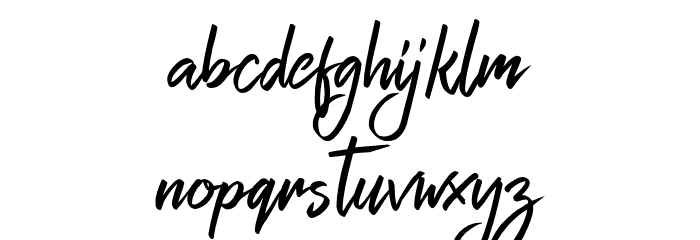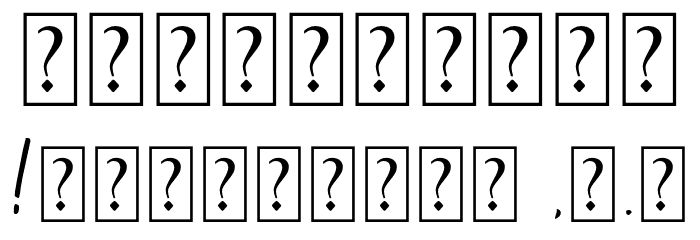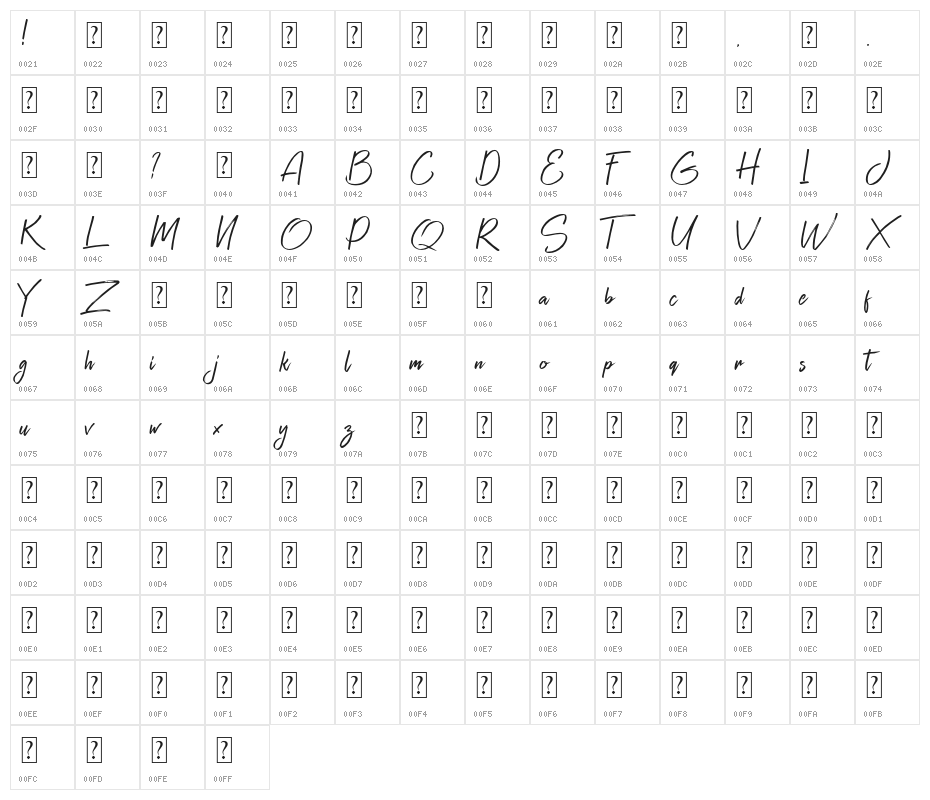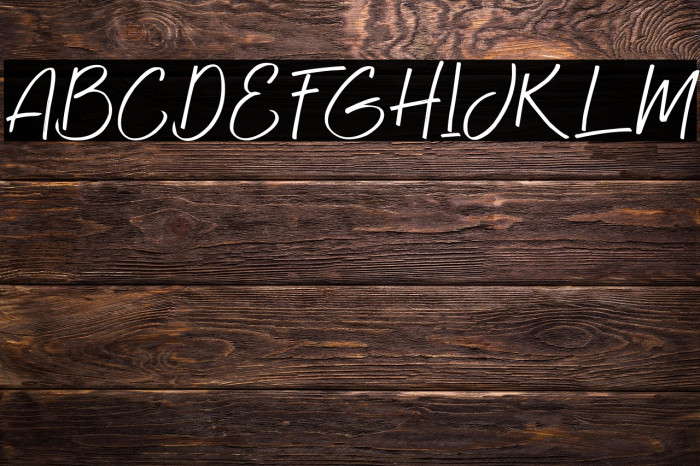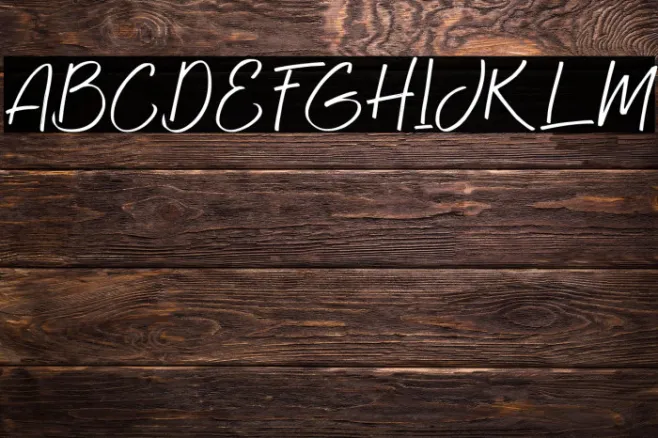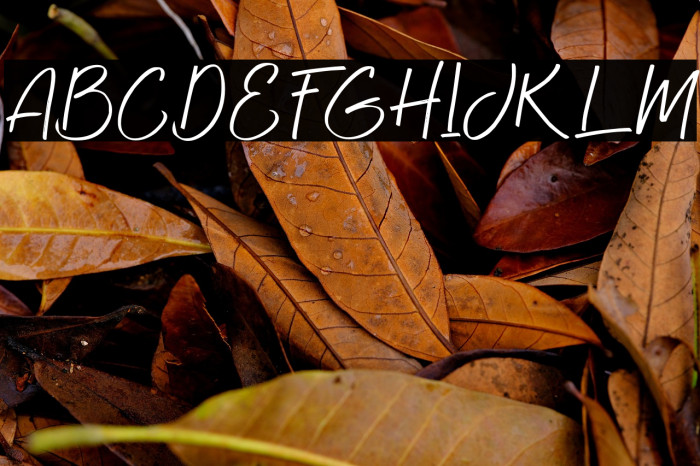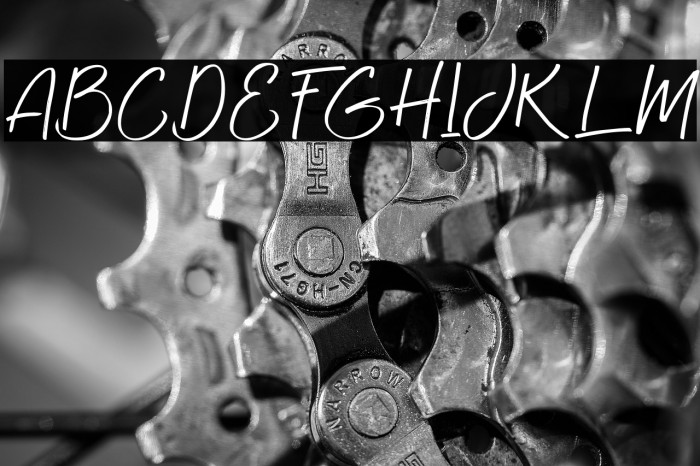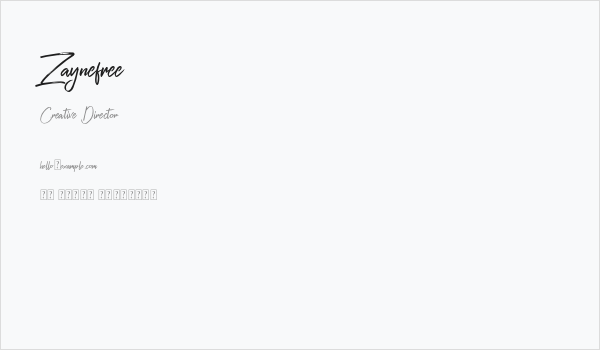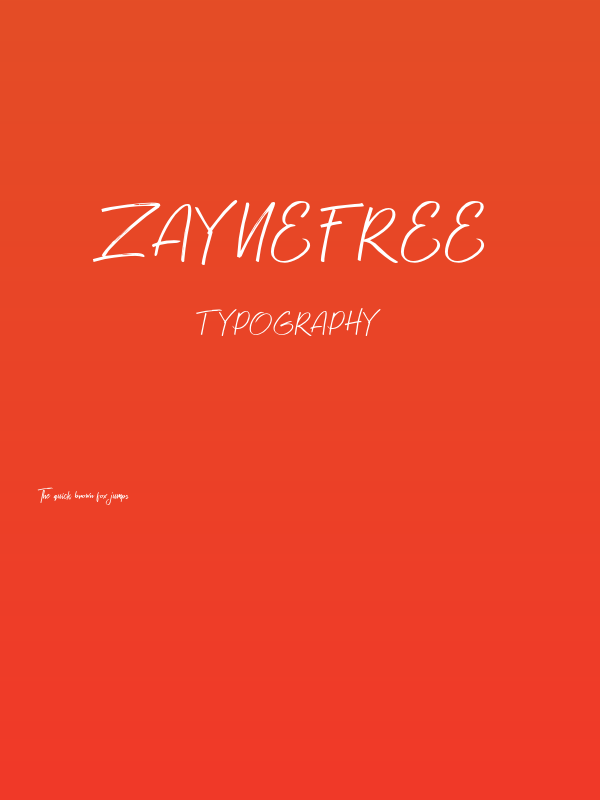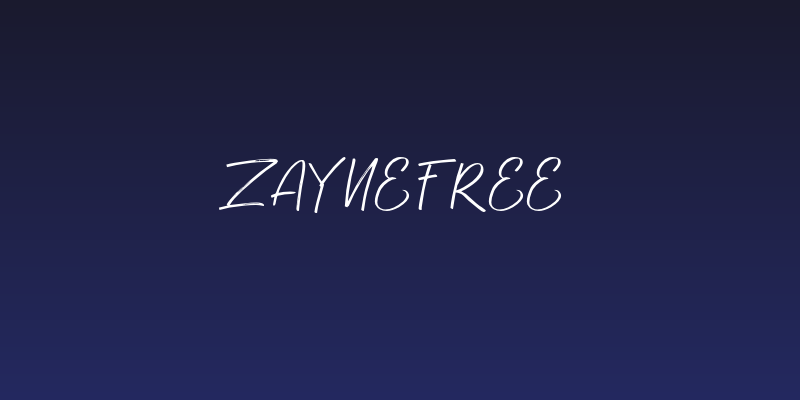
Zaynefree Font
This font features a dynamic and fluid script style, characterized by its elegant and flowing letterforms. The uppercase letters are tall and slightly slanted, giving a sense of movement and grace. The lowercase letters are more compact, with a playful and artistic flair, particularly noticeable in the loops and curves. The font exudes a handwritten quality, making it ideal for projects that require a personal touch. Its overall appearance is both sophisticated and approachable, suitable for a variety of creative applications.
A dynamic and fluid script font with elegant, flowing letterforms.
- Font: Zaynefree
- Proposed Projects: Ideal for wedding invitations, greeting cards, branding, and social media graphics.
- Category: Script
- Use Case: Logos, Headlines, Invitations